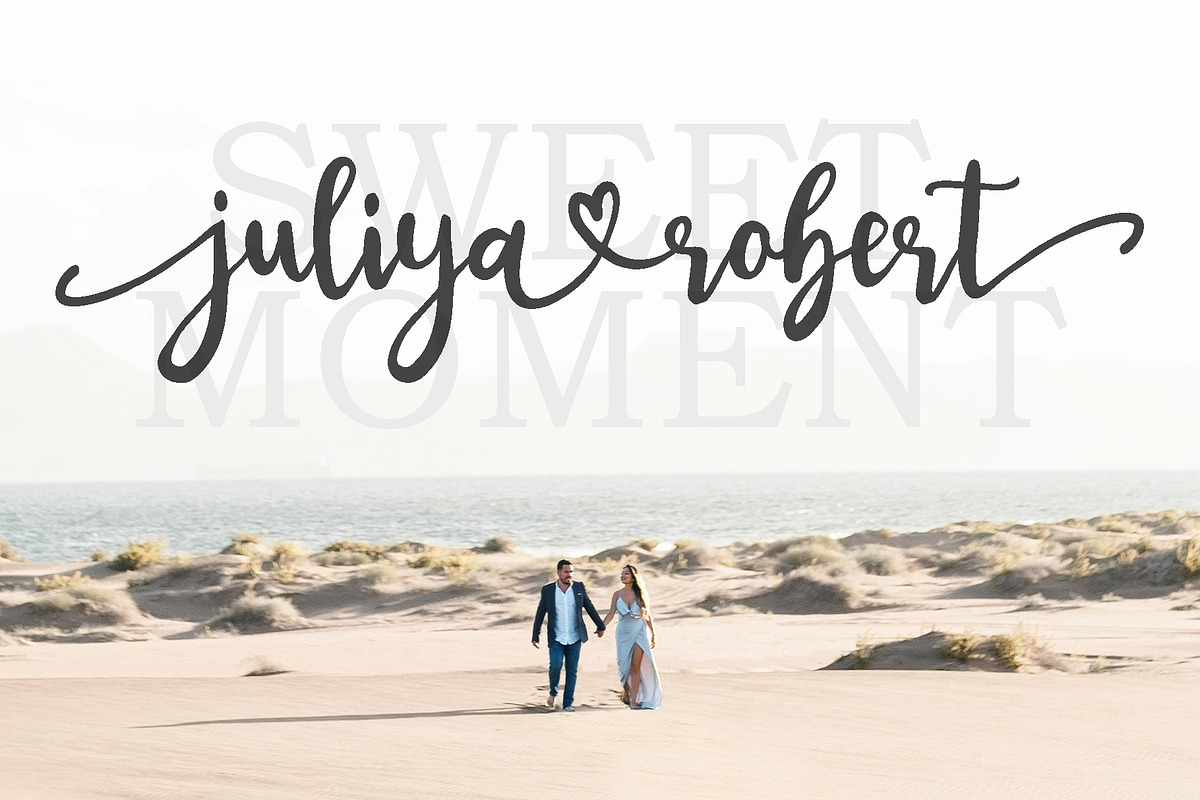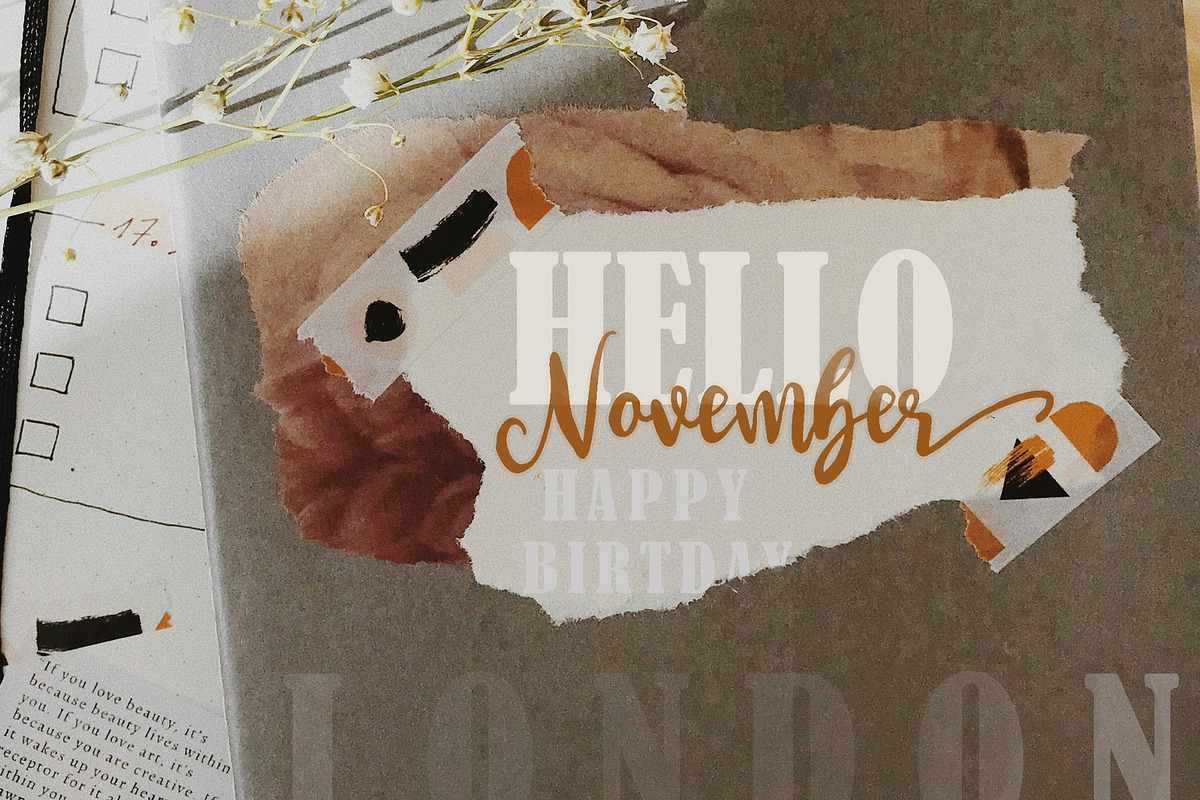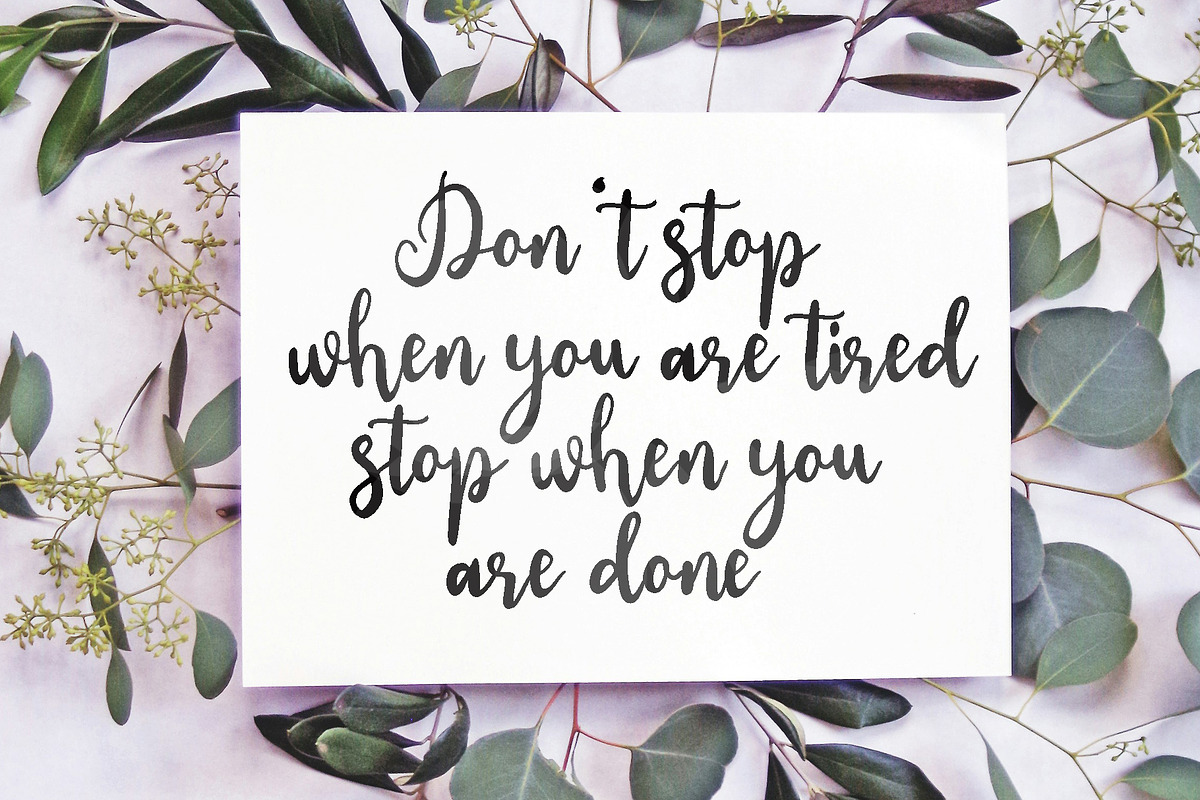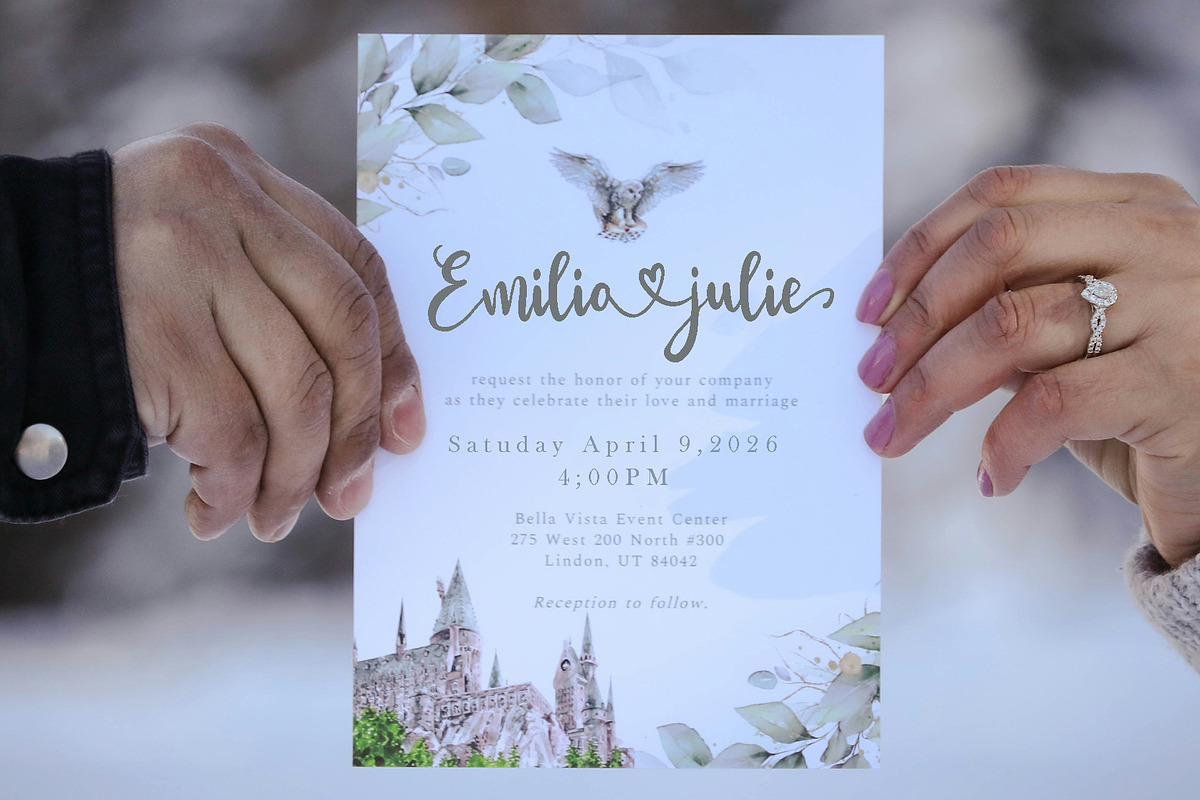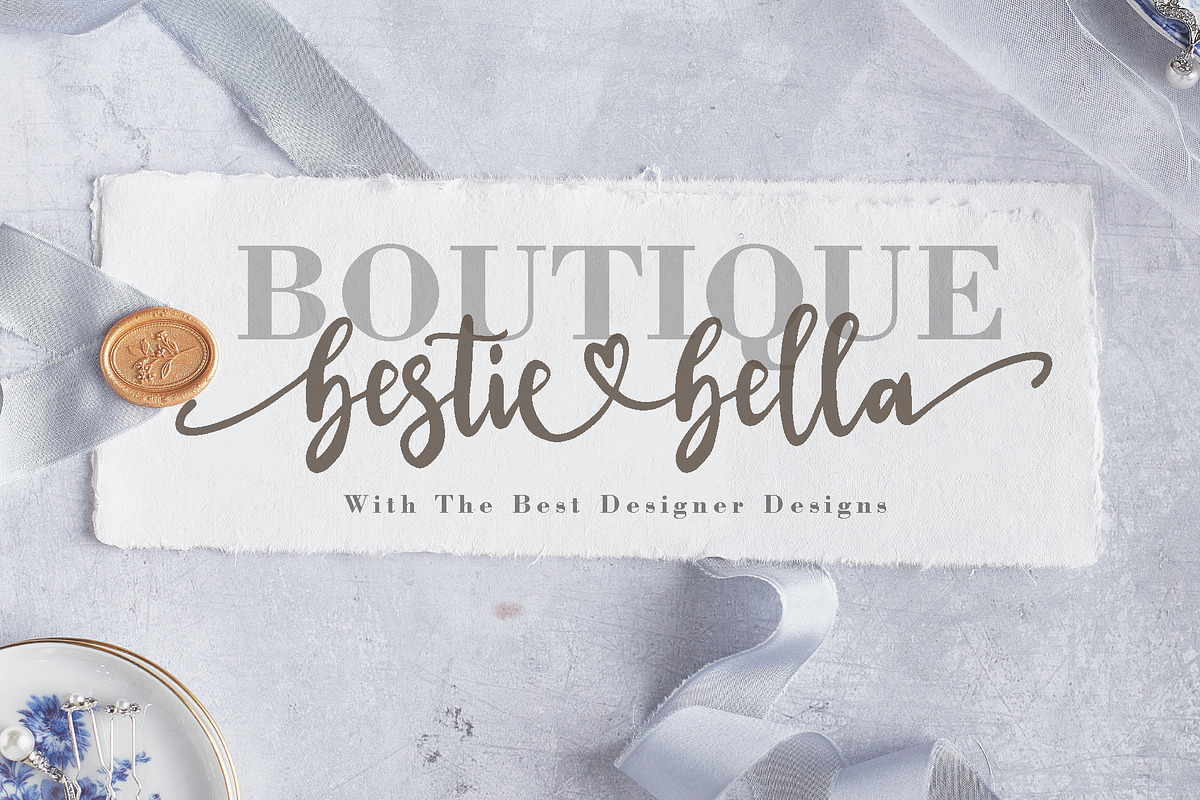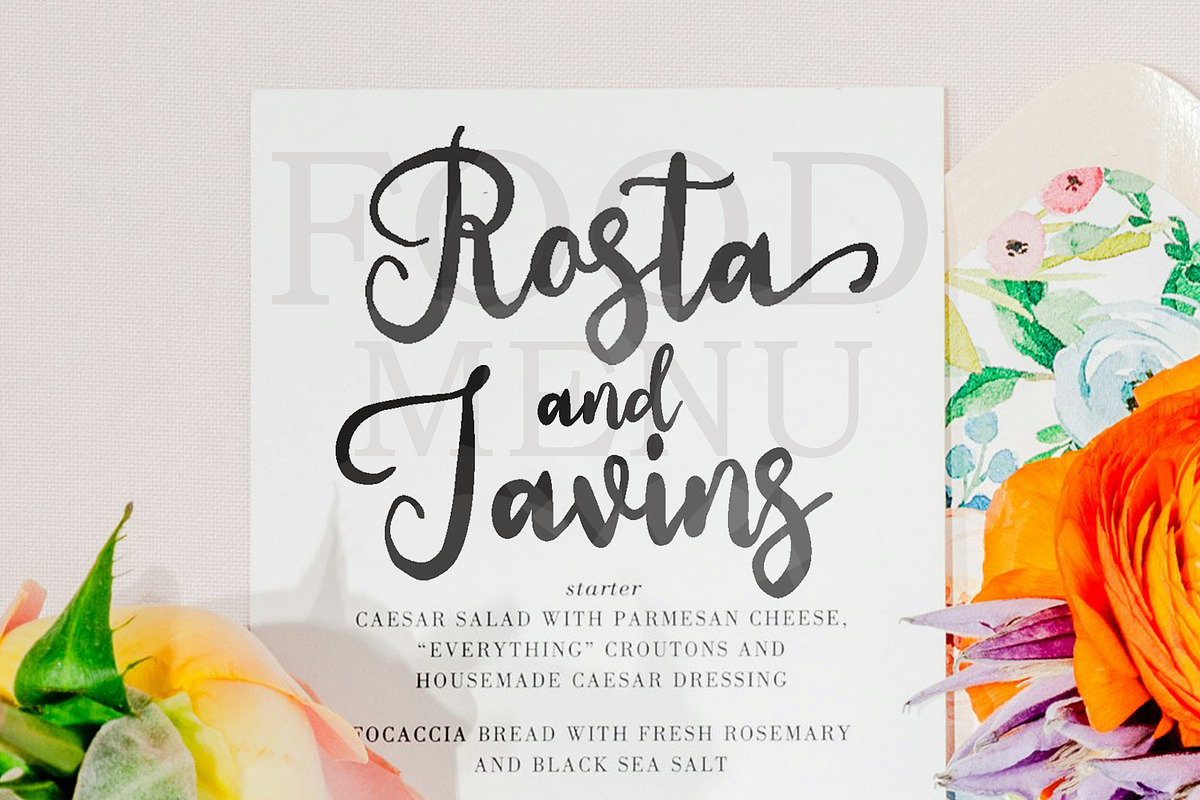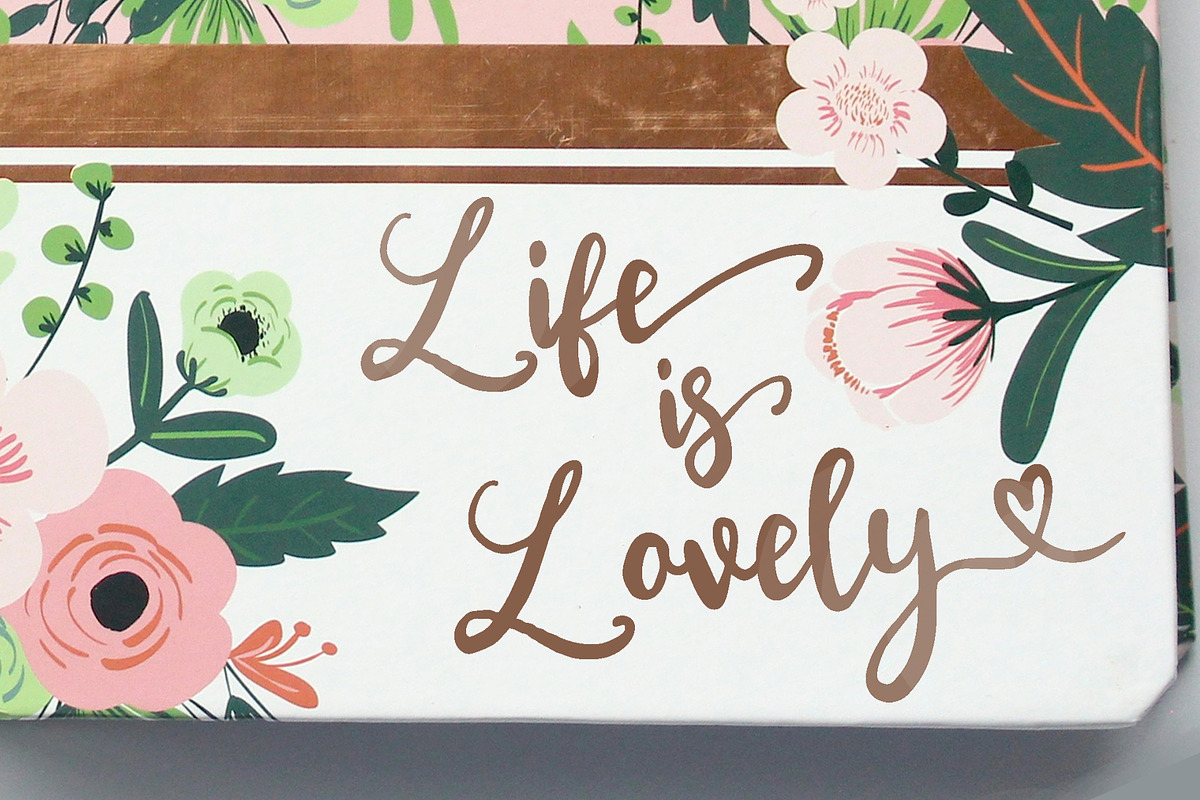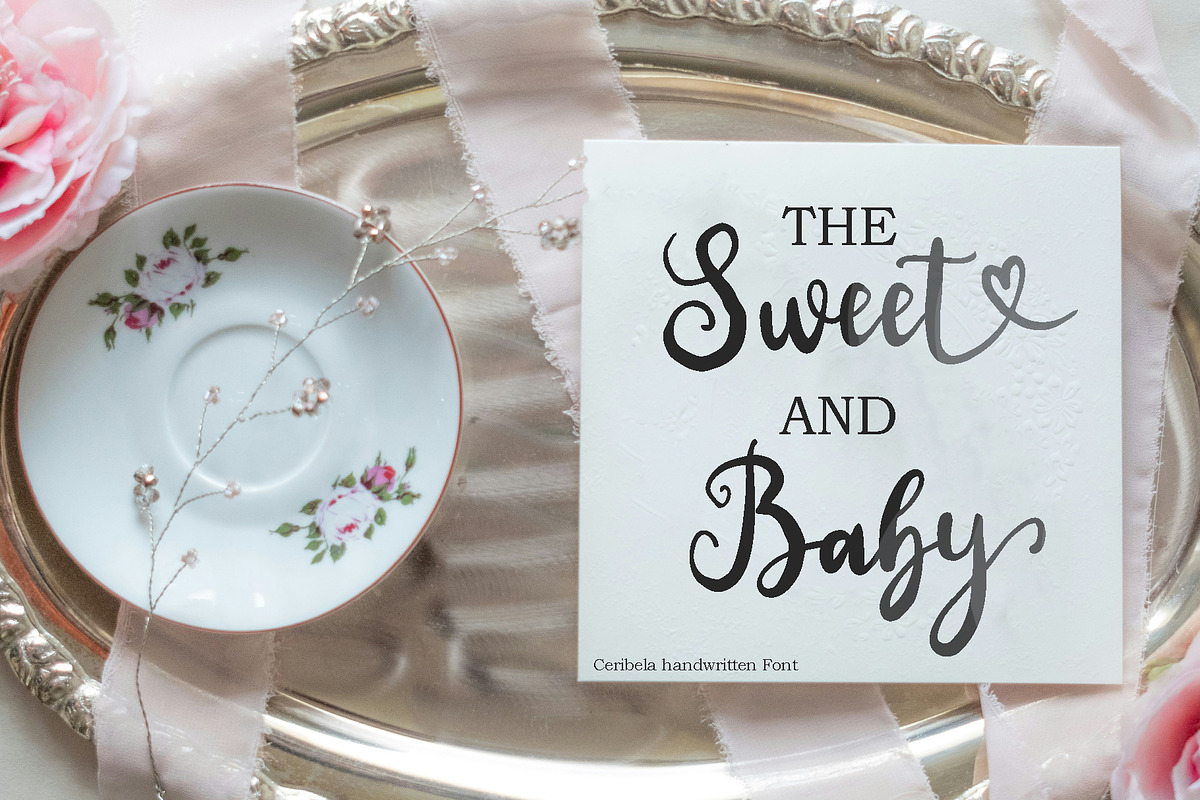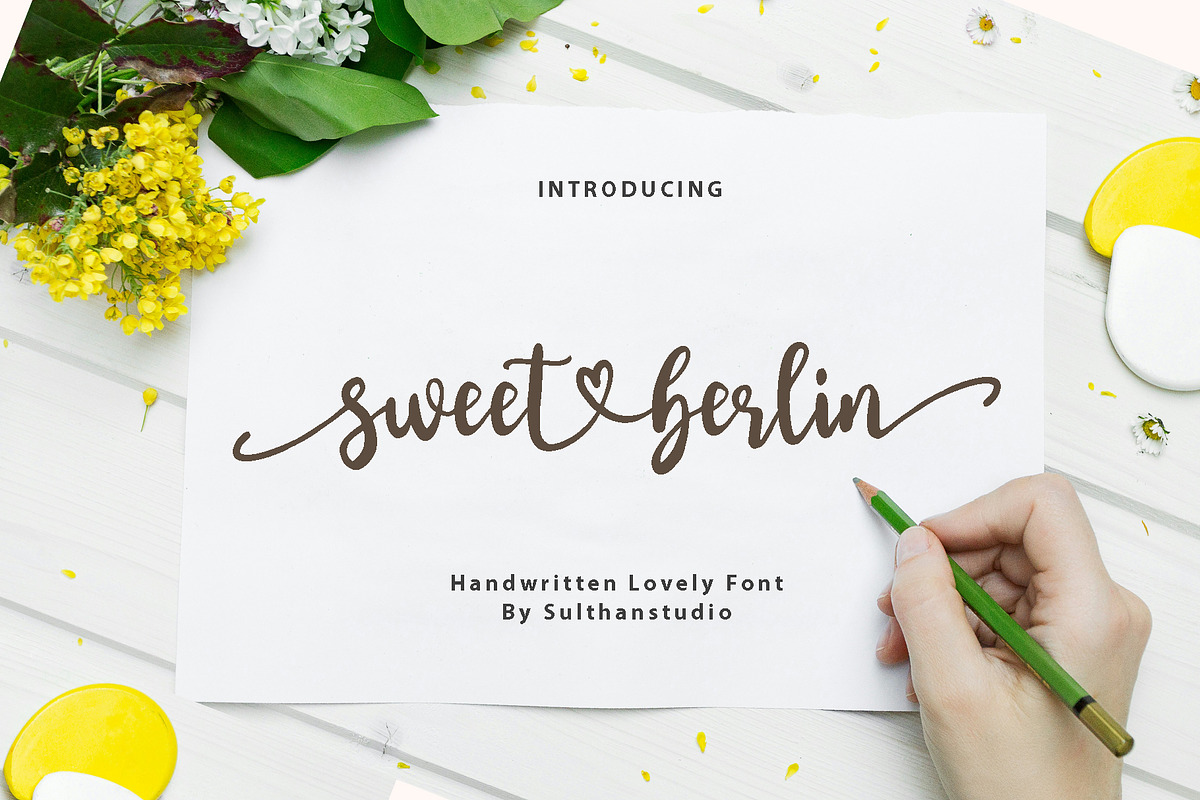
Sweet berlin
Introducing Sweet berlin Bask in the organic allure of this unique handwritten brush font. Crafted with instinctual flair, its striking style pulses with a sense of freedom, bereft of any references. An embodiment of natural elegance, this font takes the essence of handcrafted artistry to revamp your design landscape. Experience the spontaneous charm of thoughtfully designed letterforms with this distinctive brush font.